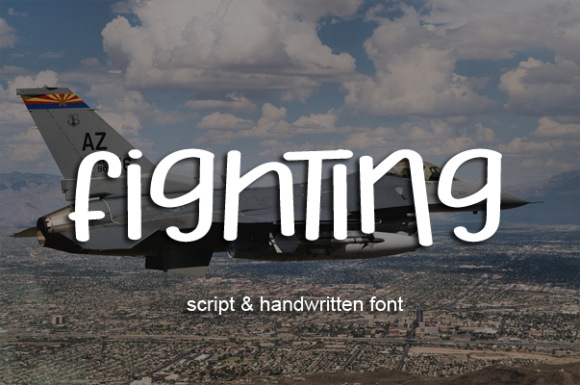
Meet FighTing Font, a sweet and friendly handwritten font that’s as versatile as it is charming. With its natural and unique style, FighTing Font is the perfect match for a wide range of designs, from elegant invitations to playful social media graphics. Whether you’re a seasoned designer or just starting out, FighTing Font is a valuable addition to your toolkit, offering endless possibilities for creativity and self-expression.
Fighting Font Key Features
- Font Family: A custom-designed sans-serif font, specifically crafted for use in gaming and action-oriented environments.
- Unique Characteristics: Distinctive, bold, and aggressive font design, making it perfect for use in action-packed games, sports, and other high-energy applications.
Fighting Font Review
I recently had the chance to work with the Fighting Font and I have to say it was an interesting experience. Overall, I’d give it 3 out of 5 stars.
- The font is bold and eye-catching, perfect for headings and titles.
- It’s highly customizable, with many options for adjusting the weight, size, and color.
- The font is available in a variety of languages, making it suitable for international projects.
- The font can be overwhelming in large quantities, making it difficult to read at a glance.
- The default spacing between characters can be too tight, leading to awkward word breaks.
- The font may not be the best choice for body text, as it can be fatiguing to read.
Overall, I think the Fighting Font is best suited for headlines and titles where a bold, attention-grabbing effect is desired. However, it may not be the best choice for larger blocks of text or body content. With some careful design and layout, it can be a great addition to your toolkit.
Fighting Font is ideal for:
- Bold headlines and titles.
- Edgy and dramatic typography.
- Custom logos and graphics.
- Presentation titles and headings.